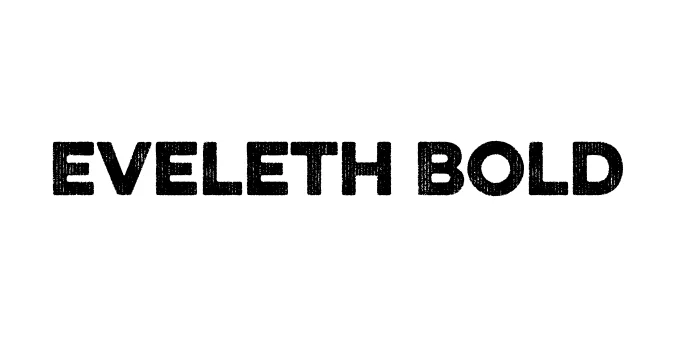
Eveleth Bold
Designed by Ryan Martinson (Yellow Design Studio)
| Category | Display / Letterpress |
| Designer | Ryan Martinson (Yellow Design Studio) |
Eveleth Bold is a premium, high-resolution letterpress font family designed by Ryan Martinson of Yellow Design Studio. It is celebrated for its exceptional realism and vintage charm, meticulously capturing the authentic textures and imperfections found in traditional wood type and manual printing processes. The Bold weight specifically provides a powerful, heavy presence that remains legible while showcasing its distressed, weathered edges.
The Eveleth family as a whole is incredibly versatile, offering multiple sub-families and unique texture options, but the Bold variant stands out as a foundational tool for high-impact display work. It has become a staple in modern vintage branding, providing a handcrafted, artisanal feel that bridges the gap between historical typography and contemporary digital design.
Eveleth Bold Best Uses
Creating authentic vintage and artisanal brand identities.
Ideal for food, beverage, and craft product labels.
High-impact headlines that require a textured, weathered look.
Perfect for t-shirt graphics and rustic streetwear branding.